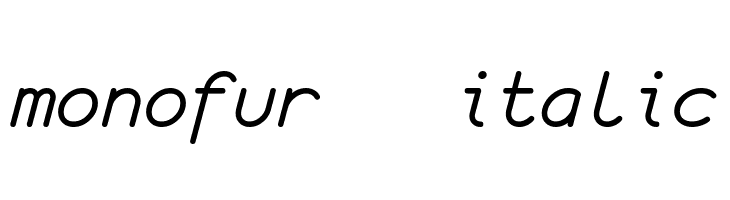
A thin, modern font with a clean and minimalist design.
A sleek, modern thin italic font with a minimalist design.
A bold, geometric font with a futuristic and industrial design.
Vintage dingbat font with detailed illustrative icons.
A bold, rounded font with a playful and informal style.
A bold, rounded font with a futuristic and playful design.
A bold, monospaced font with thick, rounded strokes and uniform width.
A bold, monospaced font with a clean and modern design.
A modern, monospaced font ideal for coding and technical documentation.